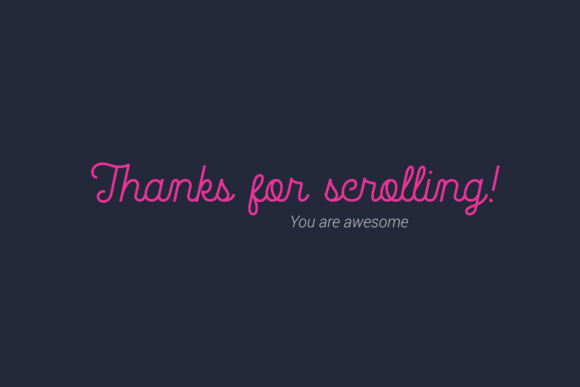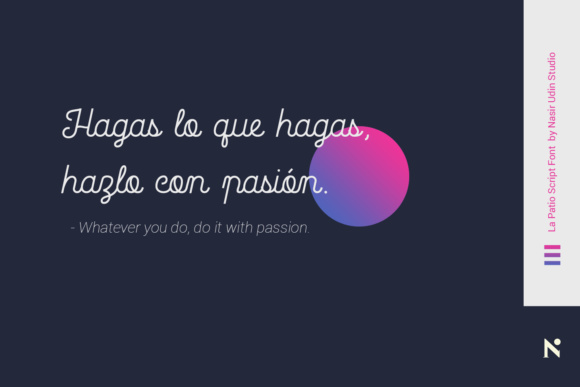
About La Patio Font
The La Patio is a monoline script font which looks like shoelaces. It’s great for use as a neon sign.
La Patio comes with several alternates and swashes for you to play with. The underline & border features help you add a special look to your design. It’s especially created for apparel branding and heading typography (e.g.: magazines, blog, book, etc.). It’s also perfect for posters, business cards, restaurant/bar/cafe decorations, neon signage, wall signage, badges, and much more.